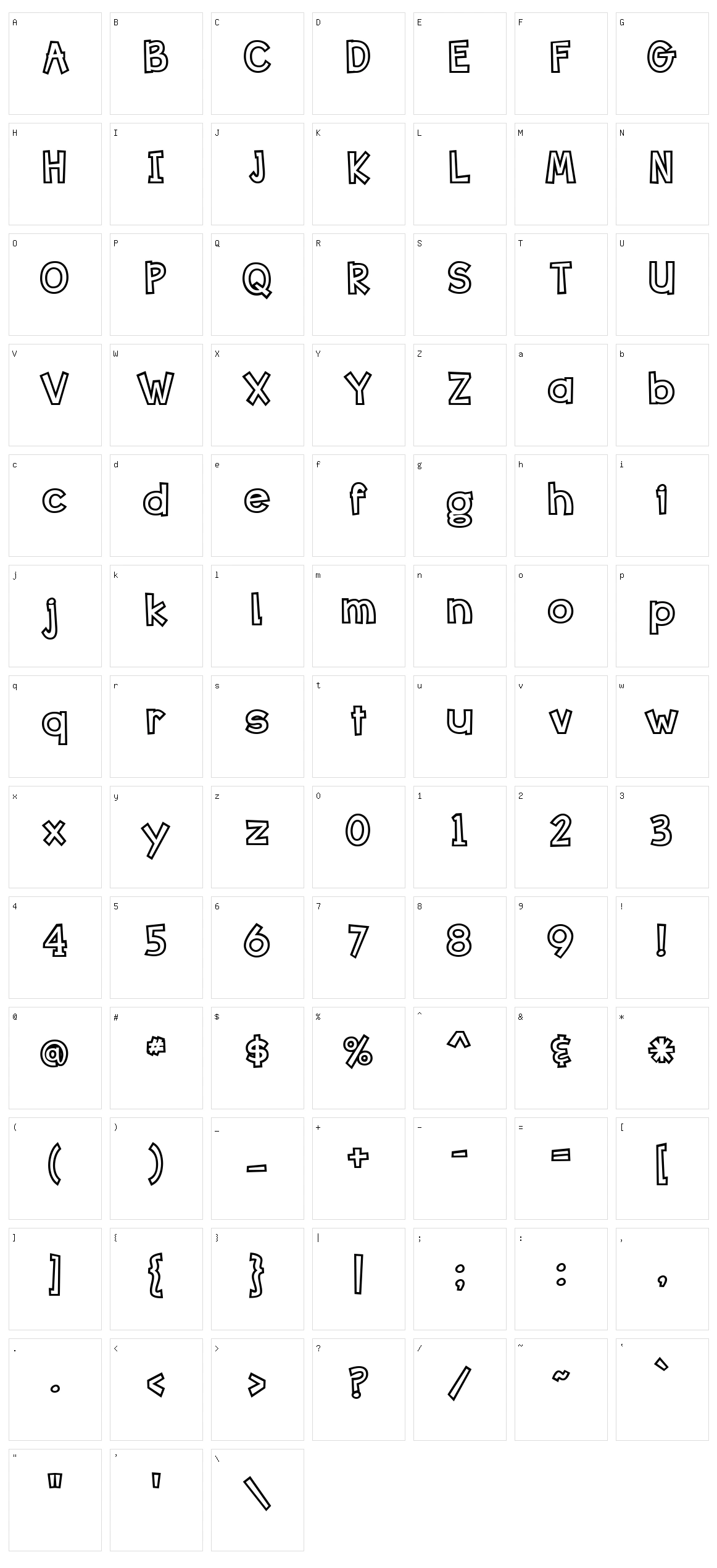
The free font Bang Whack Pow Outline is carefully designed by Brittney Murphy Design, showcasing a thoughtful balance of creativity and usability and falls under the Cartoon font style. When you download the ZIP file, it contains only 135.56 KB of font files, making it lightweight and quick to download. Please review the license details below to understand permitted usage and distribution rights. If license information is not available, we recommend using this font for personal projects only or contacting the author directly for commercial usage permissions.